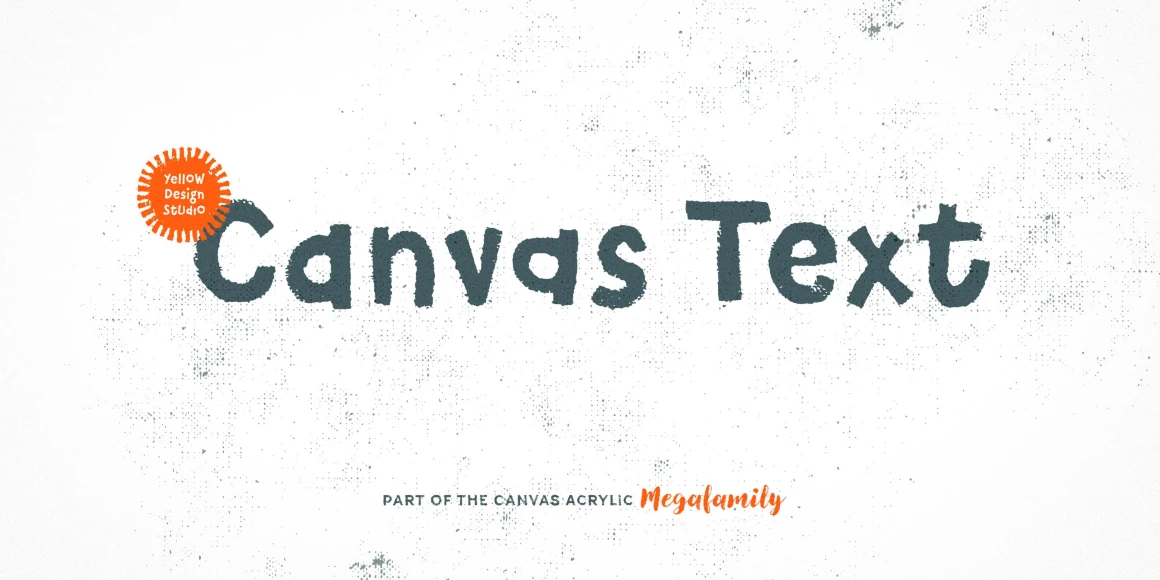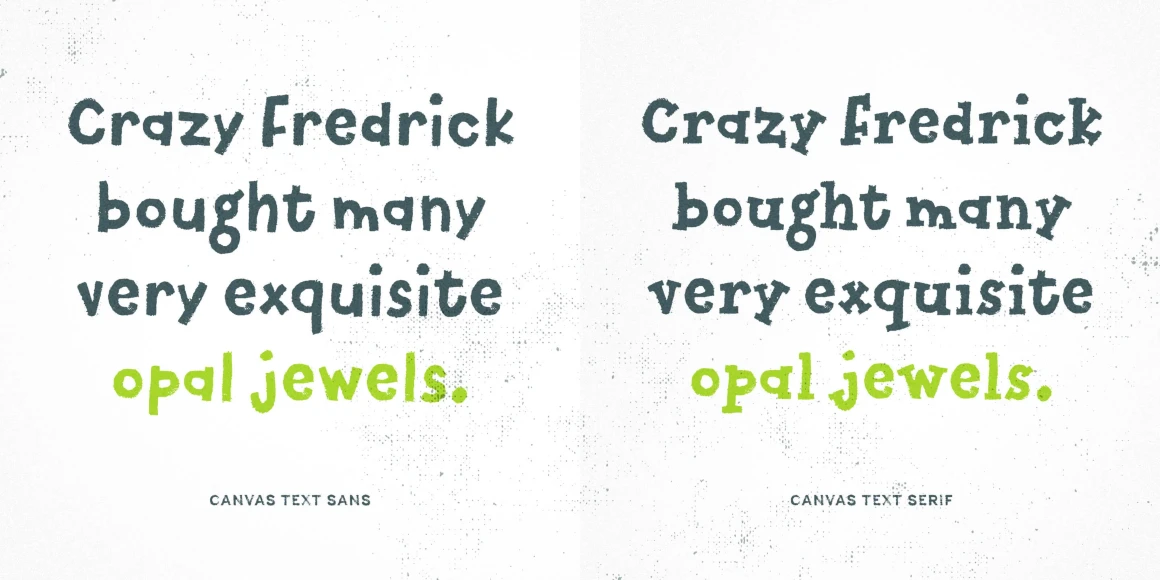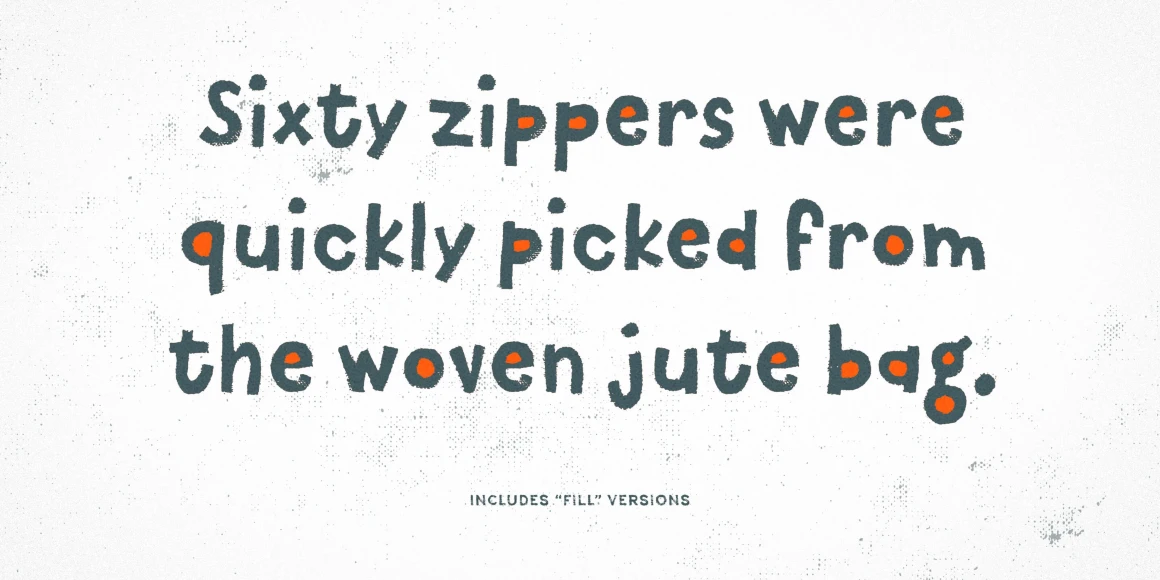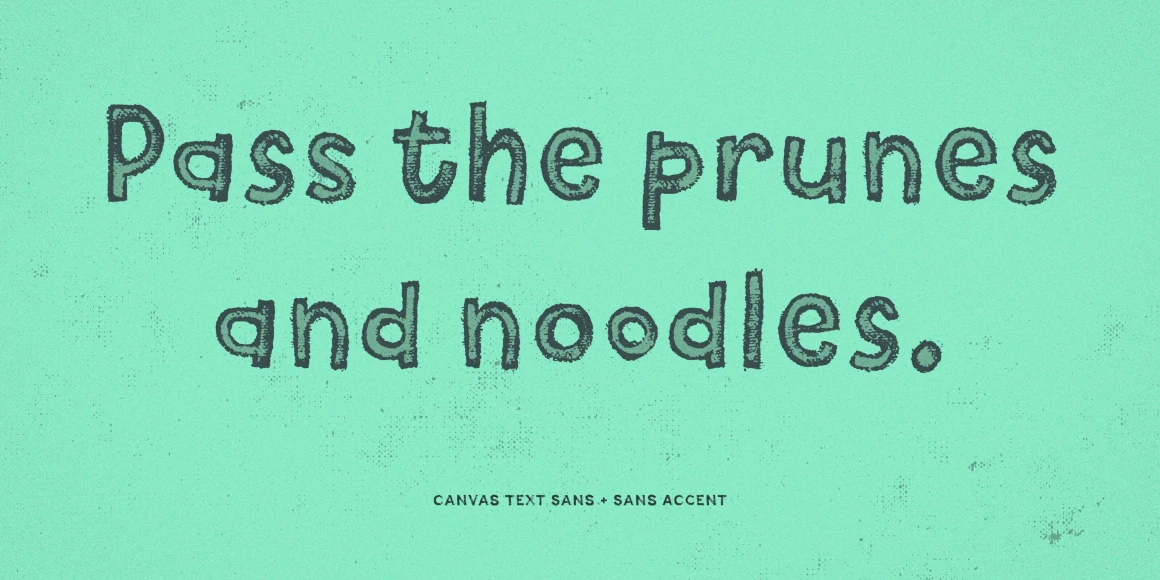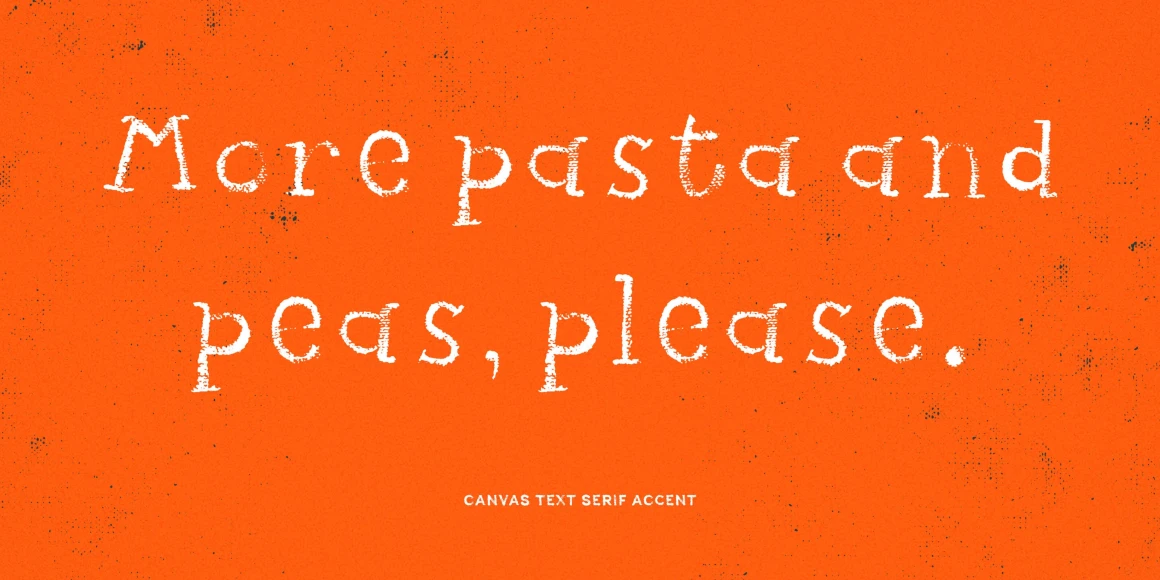
Canvas Text
From Yellow Design Studio
Canvas Text is part of the Canvas Acrylic Megafamily. It’s casual sans and serif with unique accent layers. It features authentic, hi-res texture that retains its realism even at very large sizes. Canvas Text has double-letter ligatures that automatically fix adjacent duplicate letters. A bonus set of complimentary vector background textures, shapes and elements is available from the site.
Designed by Ryan Martinson & Rhea Martinson